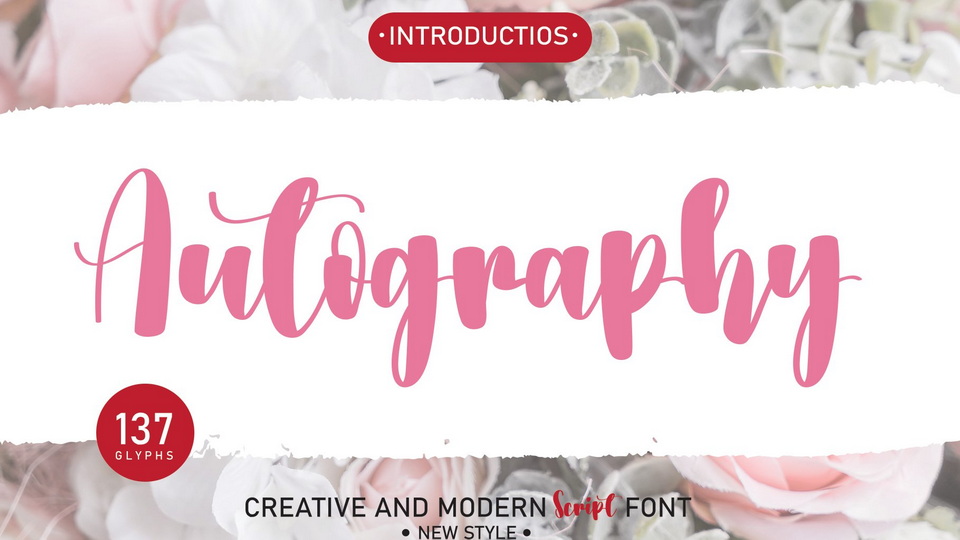
Autography Font › Fontesk – Fonte Grátis
Download Autography font, a lovely brush typeface made of beautiful creative strokes. Autography font is perfect for your creative ideas, both formal and informal.